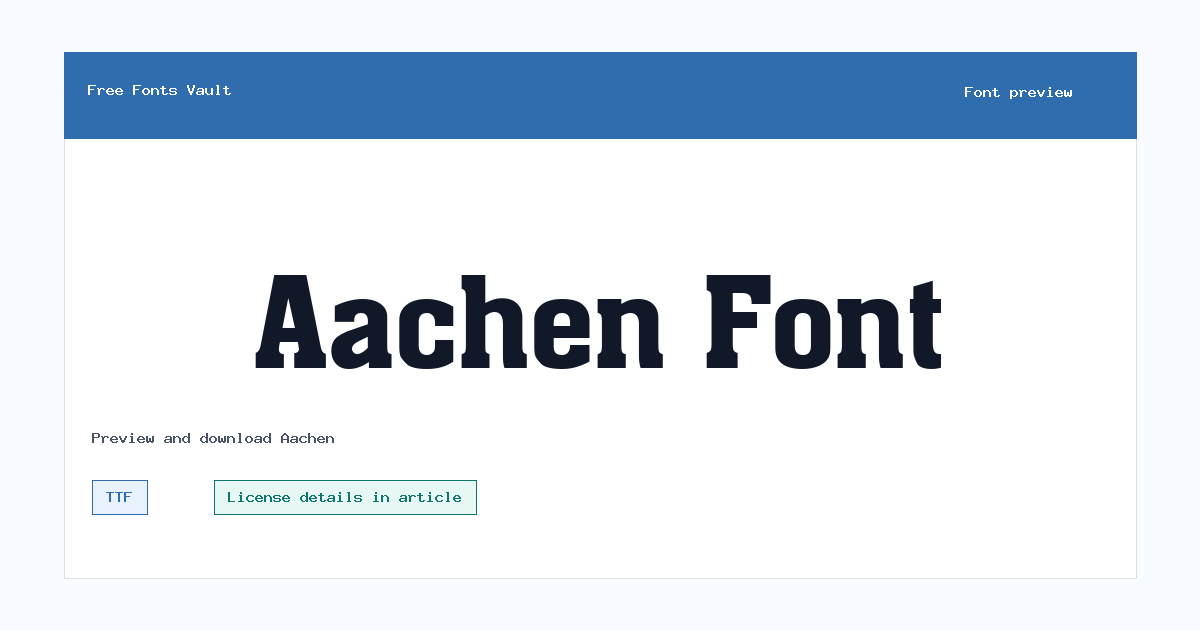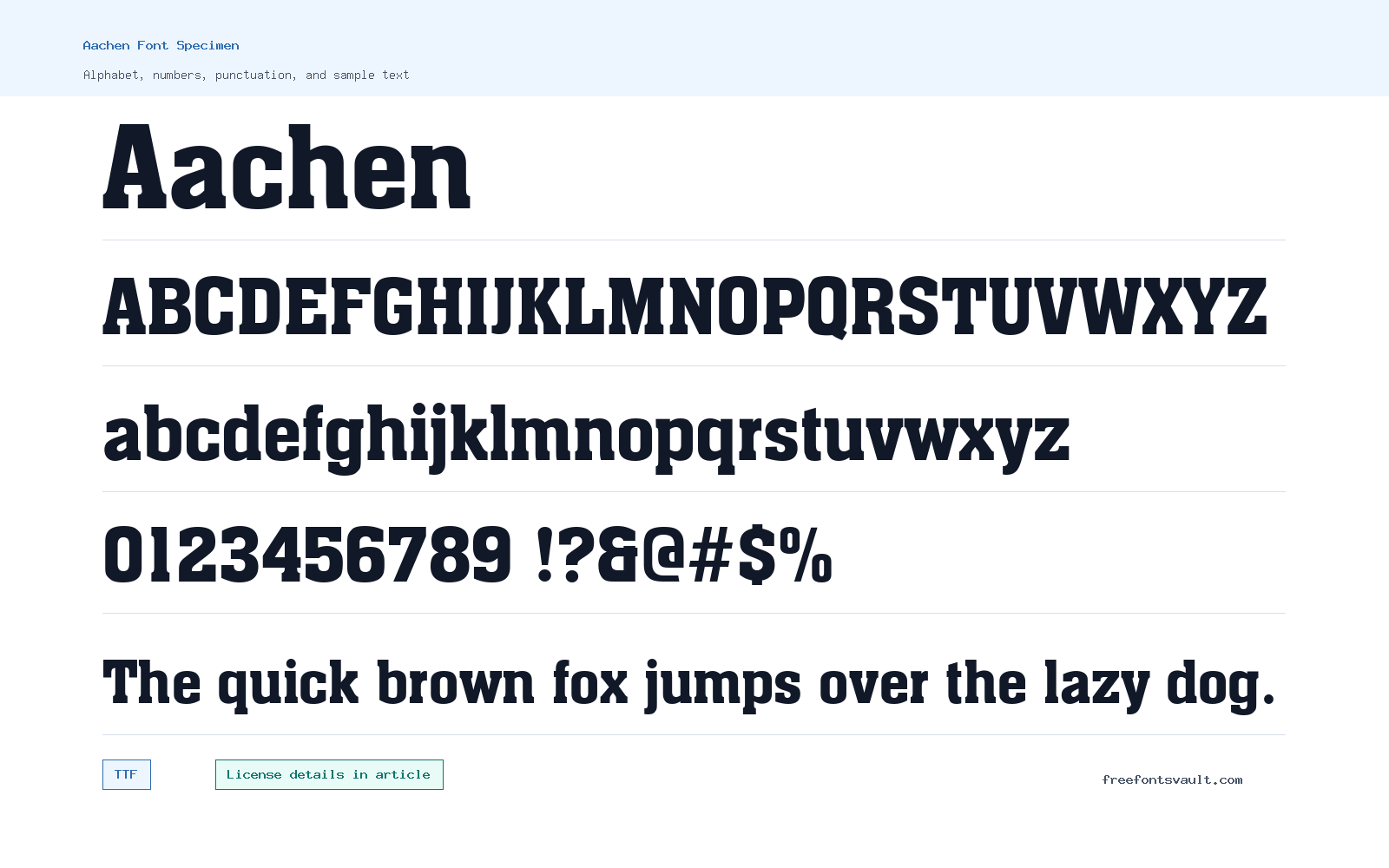
Aachen
Aachen font.
Aachen is a strong display font with a solid, compact feel. Use the preview tool to test your own words before downloading the TTF file.
About Aachen
Aachen works best when the text is short and the message needs weight. Its regular style is suited to bold headings, labels, poster-style words, badges, and other places where a compact display look is more useful than long-form readability. Because the available file is a TrueType font in a regular weight, it should be easy to test in common design apps and operating systems that support TTF fonts.
Try Aachen with names, one-line titles, short calls to action, or uppercase-heavy layouts. Keep spacing in mind, especially at smaller sizes, because heavy display lettering can feel tight when used in longer text. For body copy, pair it with a simpler sans serif or serif font so the main reading experience stays comfortable while Aachen handles the visual emphasis.
Aachen has a bold, compact display personality that can give short words a strong poster-like presence. Test it with uppercase headings, sports-style labels, badge mockups, and short product names. Because the shapes are heavy, it usually needs enough margin around the text so the layout does not feel cramped.
For screen use, compare Aachen at the final size before downloading. Heavy display fonts can look powerful in a large preview but become dense in small navigation, captions, or multi-line copy. Use it for the main word or phrase, then pair it with a cleaner text font for explanations and details.
- Heavy display character suited to short titles, badges, and poster text
- Strong display weight for compact headlines and badge-style layouts
- Better for short emphasis than long paragraph reading
- Headlines, logos-in-progress, title graphics, and poster-style layouts
- Labels, badges, stickers, thumbnails, and short branding mockups
- Posters, badges, sports-style graphics, labels, and bold headline mockups
Use Aachen for short, high-impact text and test it at the exact size you plan to use. If the words feel cramped, increase tracking or switch to a simpler companion font for supporting copy. If the letters feel too tight, increase size or spacing slightly and reduce the amount of text. Aachen is most effective when the message is direct and the layout gives the bold forms room to breathe.
Is Aachen good for body text?
It is better for short display text than long paragraphs. Use it for titles or labels, then pair it with a more readable font for body copy.